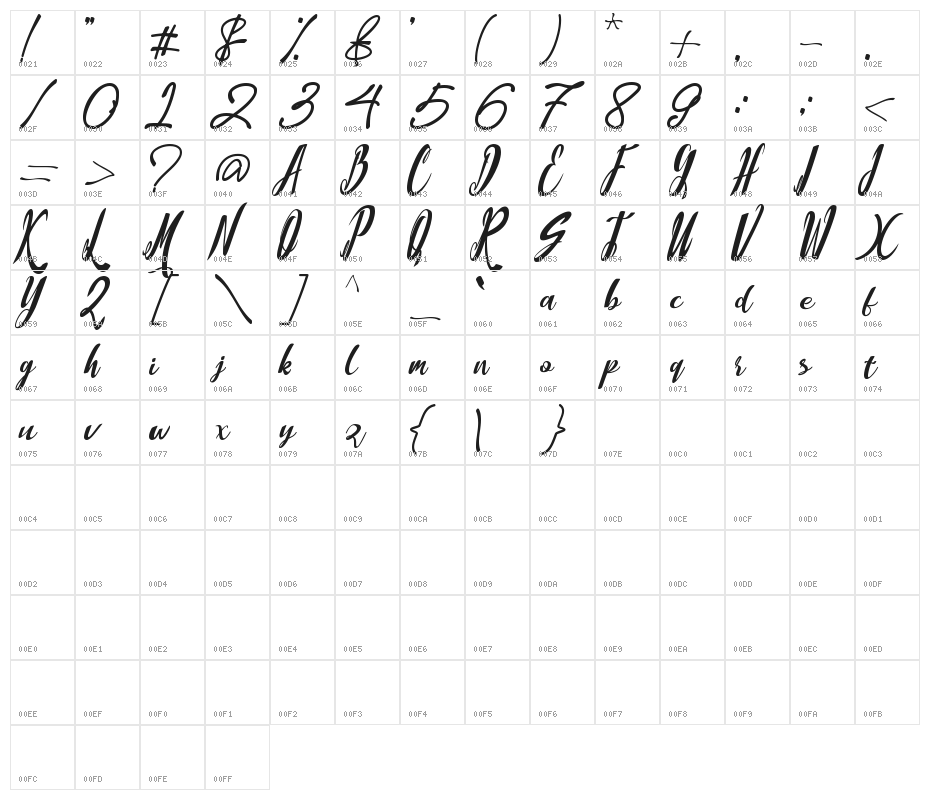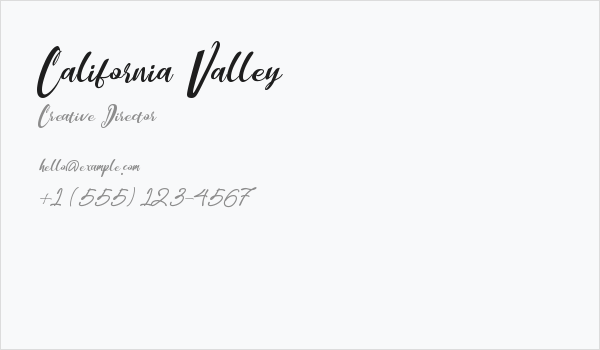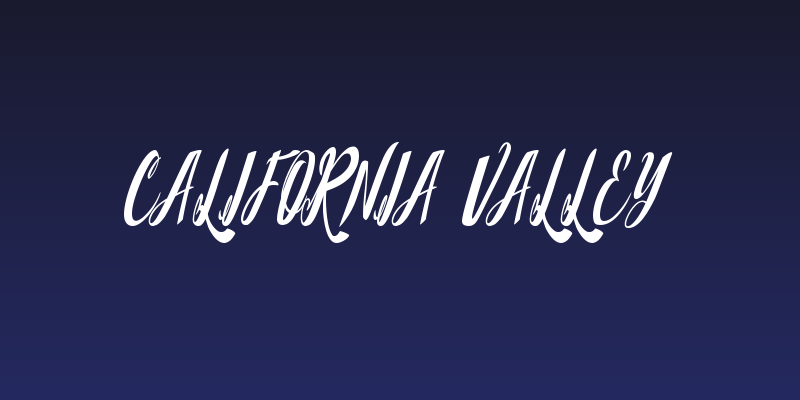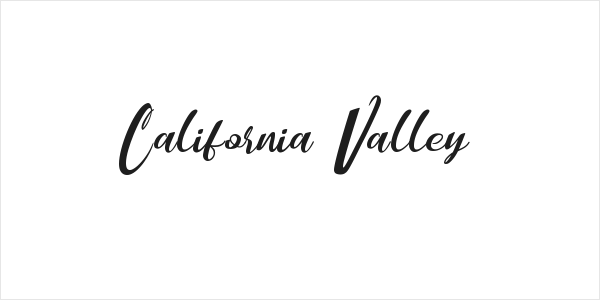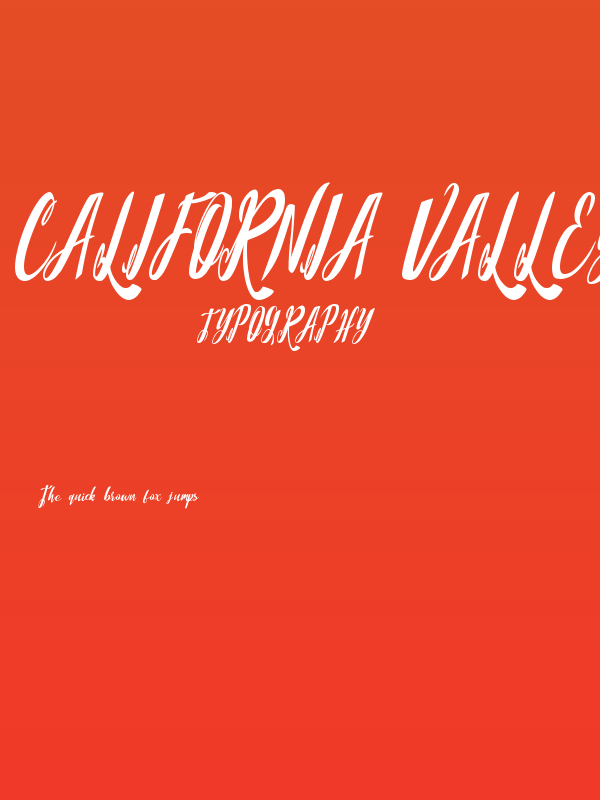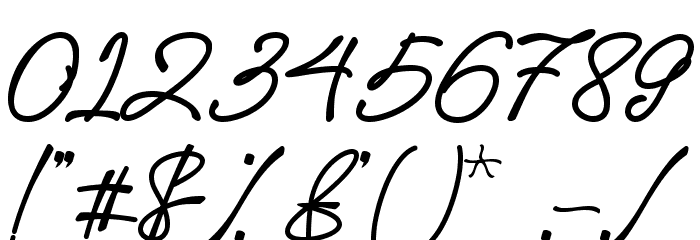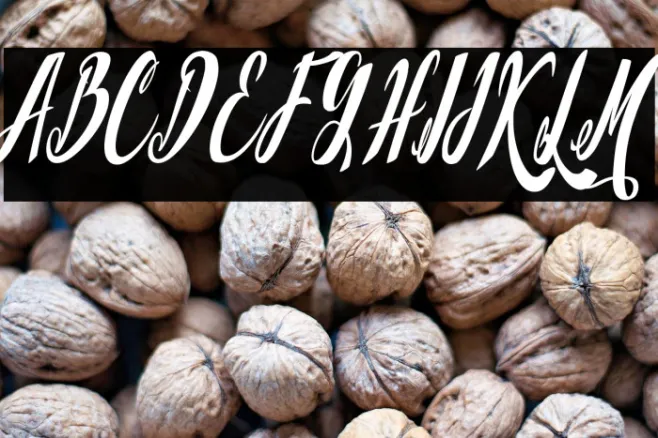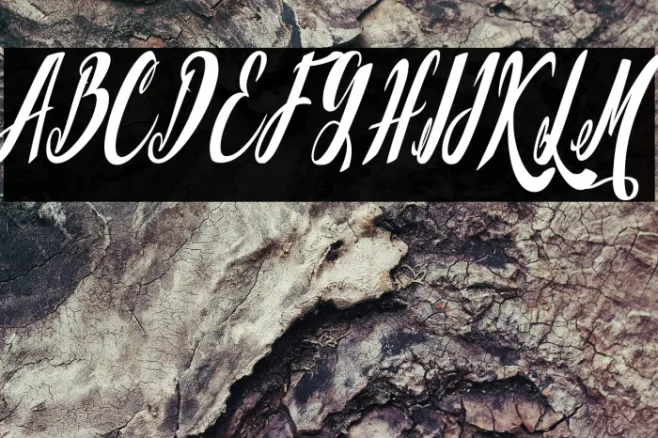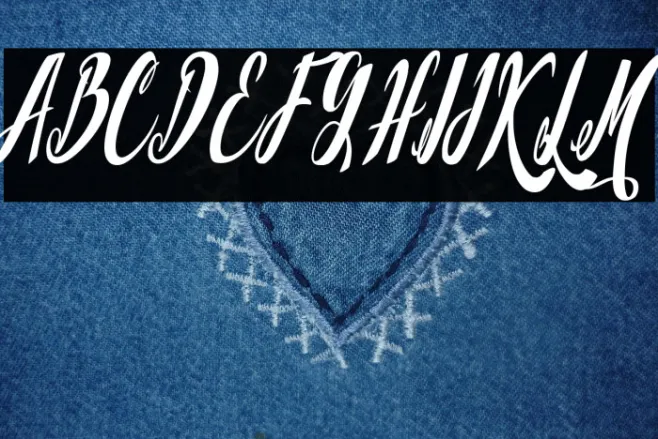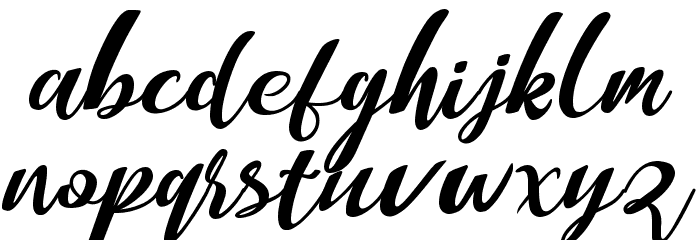
California Valley Font
California Valley Description
This font features a dynamic and flowing script style, characterized by its elegant and cursive letterforms. The uppercase letters exhibit a bold and sweeping motion, while the lowercase letters maintain a consistent fluidity, creating a harmonious balance. The numerals and special characters are crafted with the same attention to detail, ensuring a cohesive look across all glyphs. The font's overall appearance is both sophisticated and expressive, making it suitable for a variety of creative applications.
| Proposed Projects | Ideal for wedding invitations, branding, logo design, and elegant stationery. |